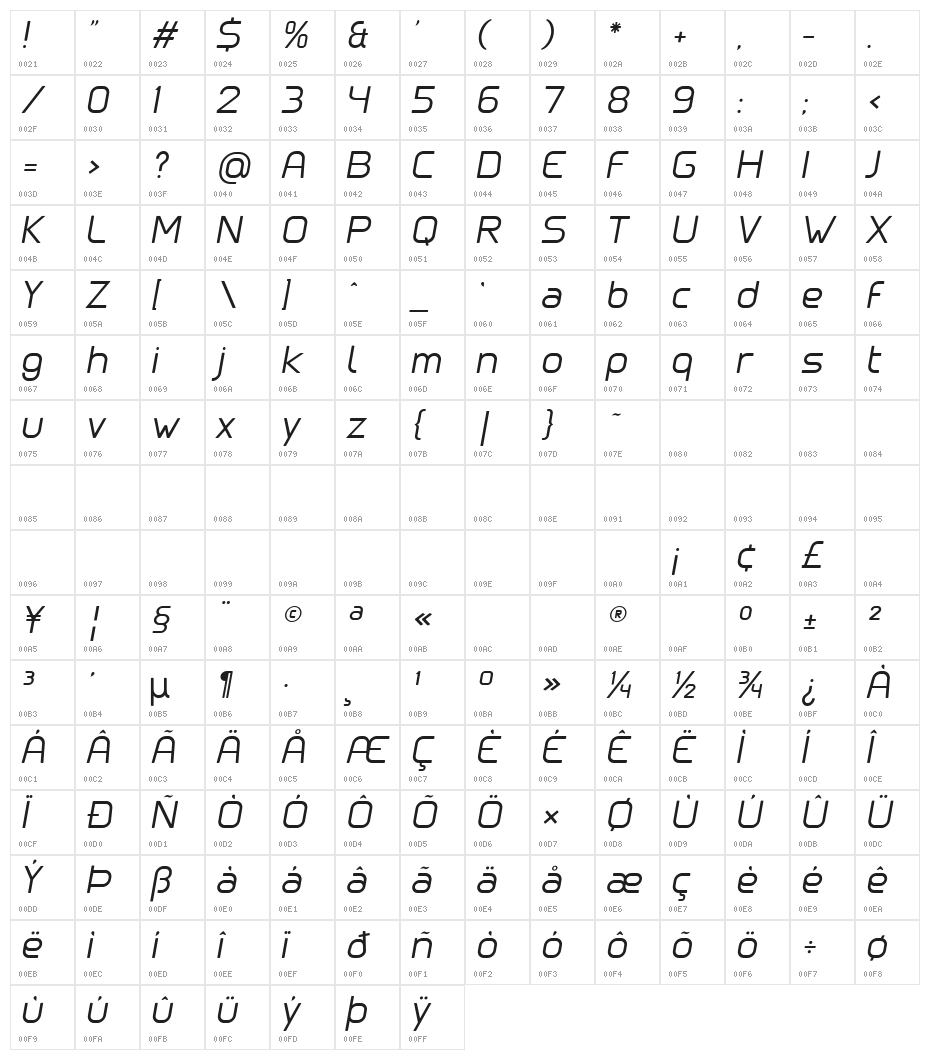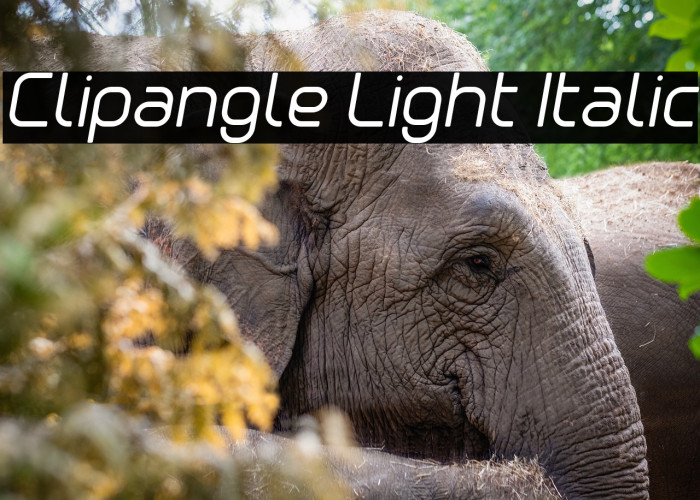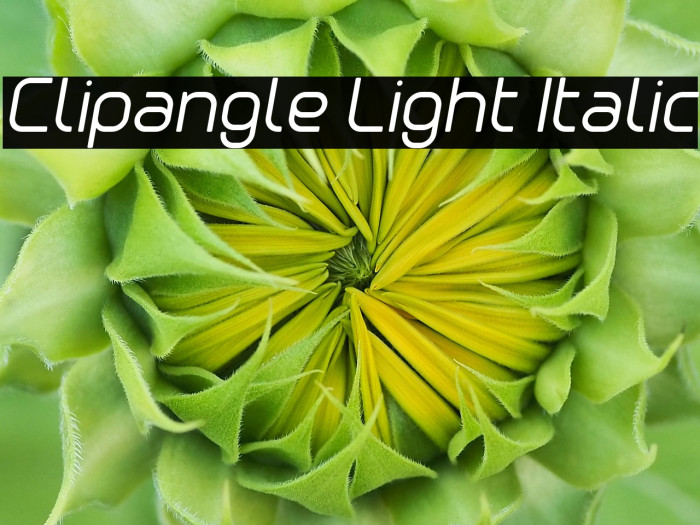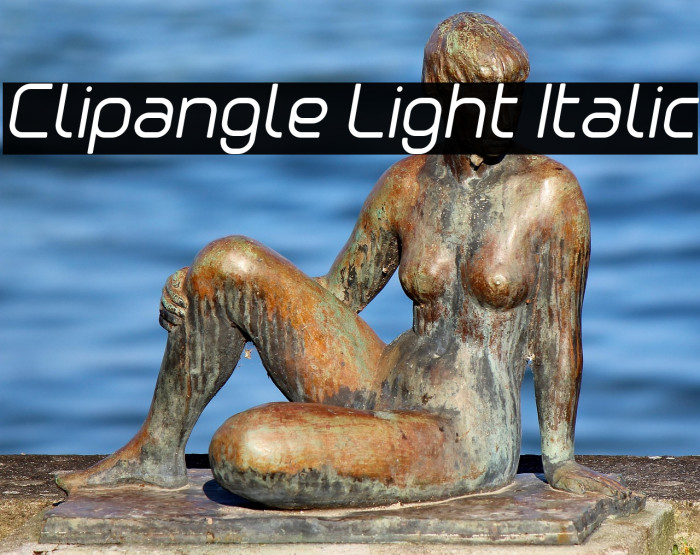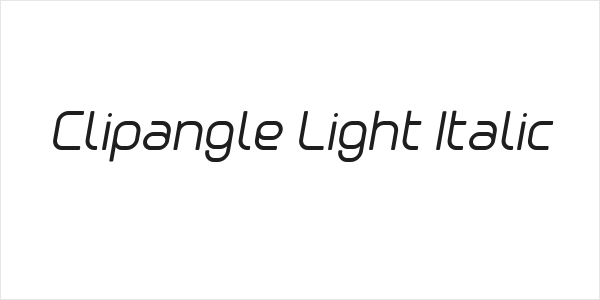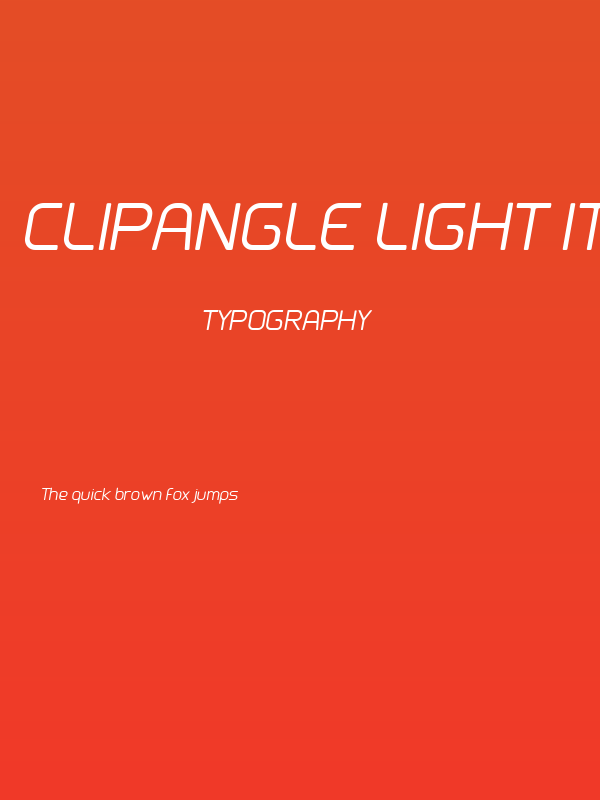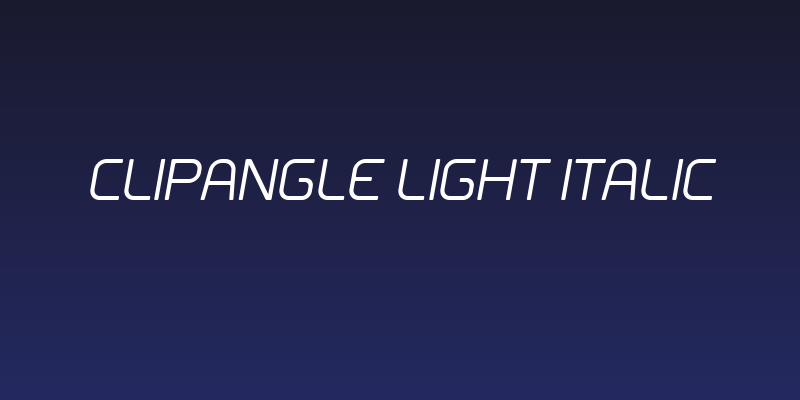
Clipangle Light Italic Font
Clipangle Light Italic Description
This font features a sleek, modern design with a light weight and italic style. The characters are slightly condensed, giving it a streamlined appearance. The strokes are consistent in thickness, offering a low contrast that enhances readability. The rounded edges and smooth curves add a touch of elegance, making it suitable for contemporary designs. The font maintains a uniform character spacing, ensuring clarity and balance across all text. Its geometric structure and clean lines make it versatile for various applications.
| Proposed Projects | Ideal for tech branding, modern advertising, digital interfaces, and minimalist design projects. |